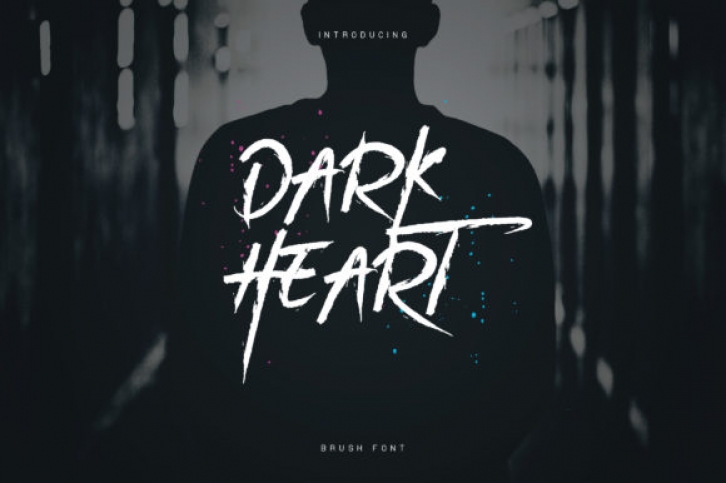
Dark Heart is a unique display font with additional vector elements. Add this beautiful display font to each of your creative ideas and notice how it makes them stand out!